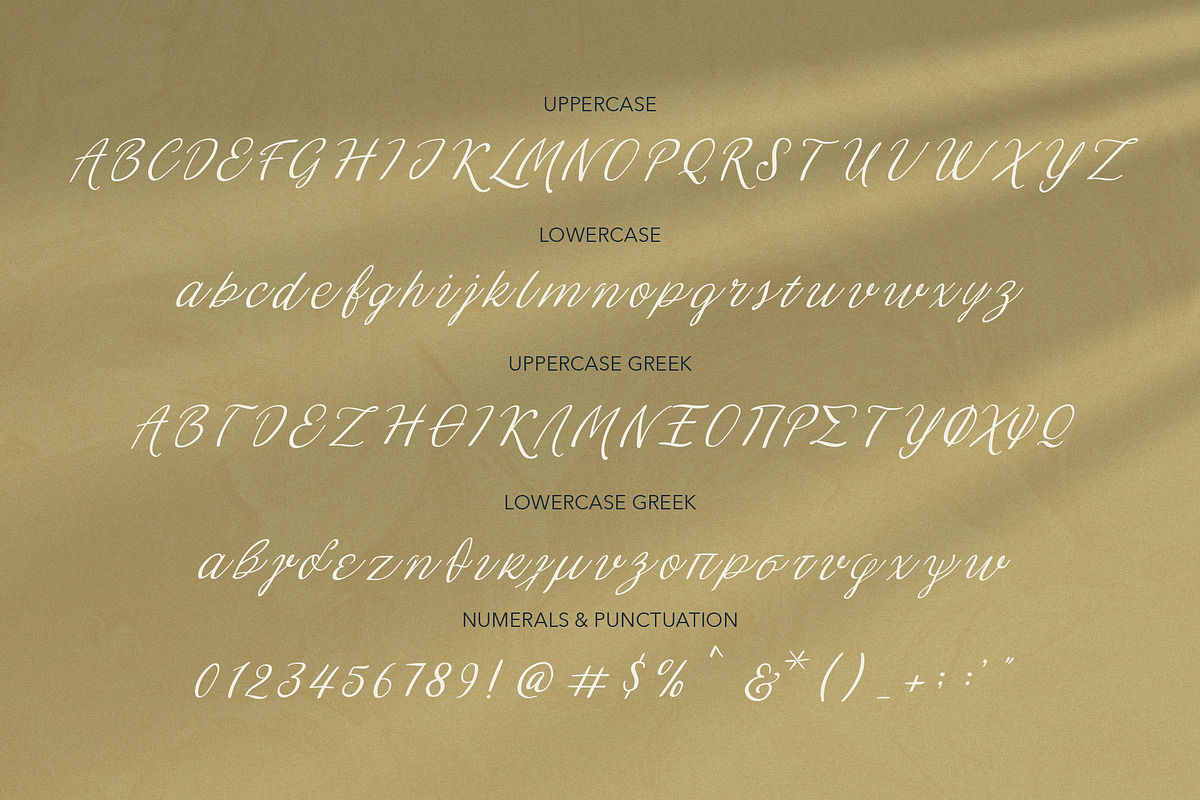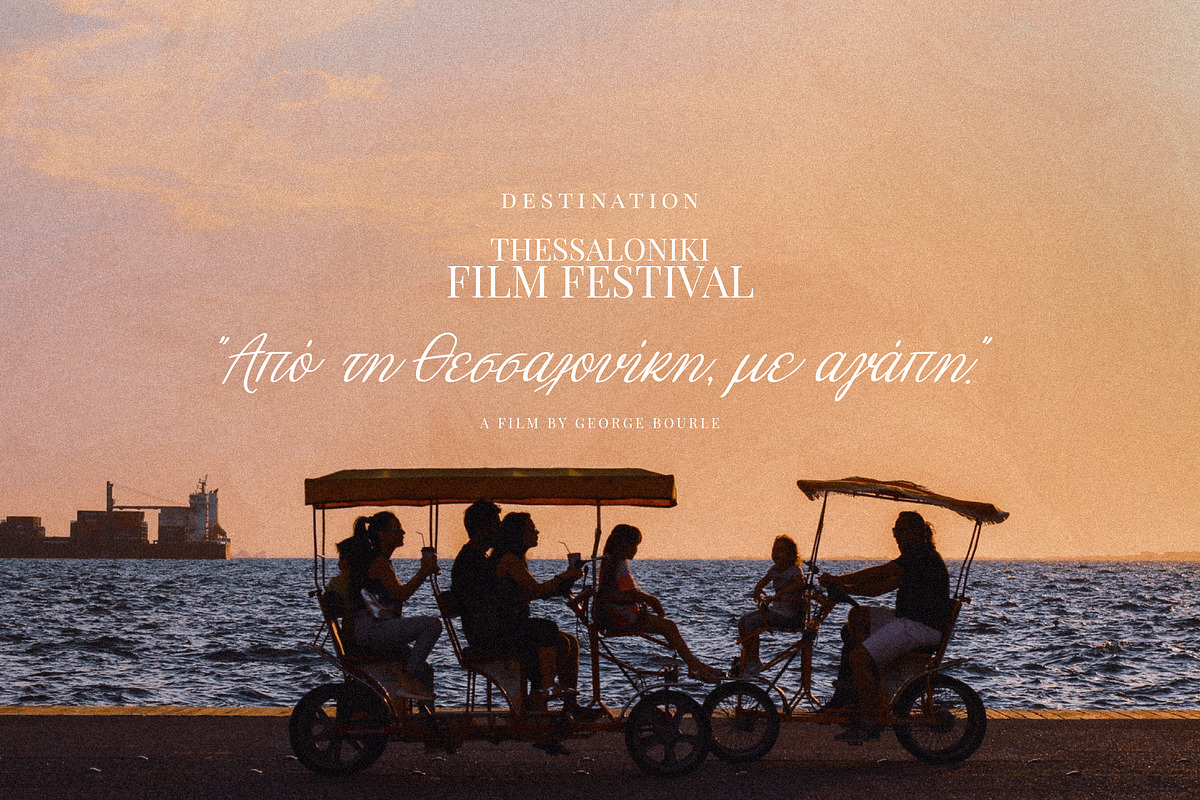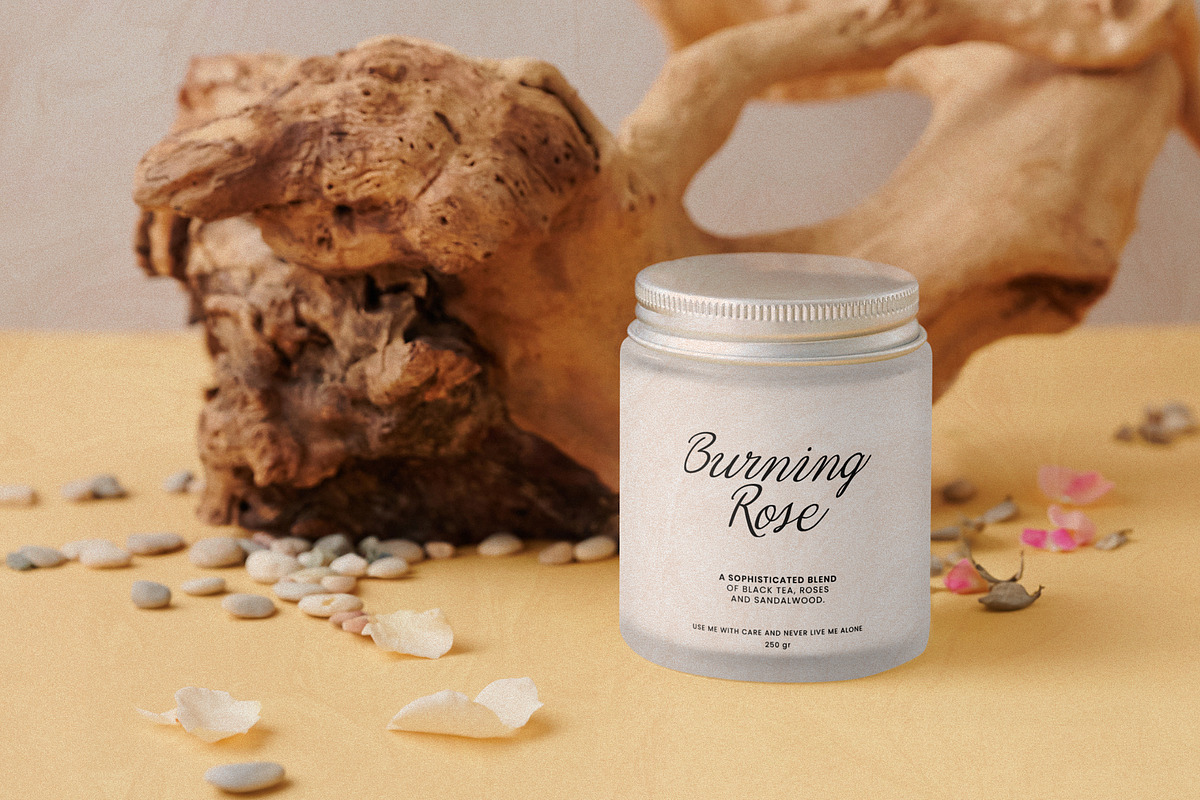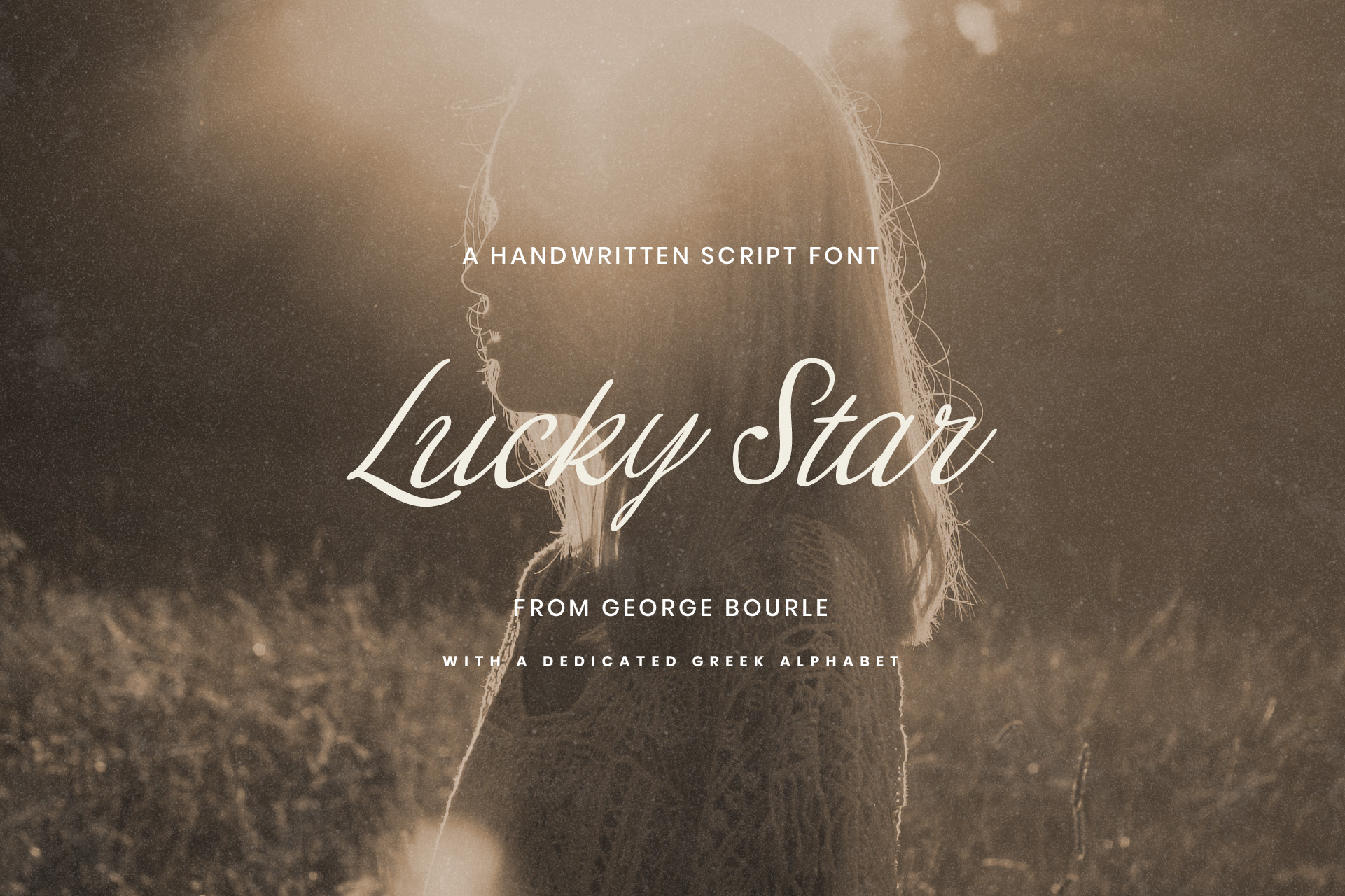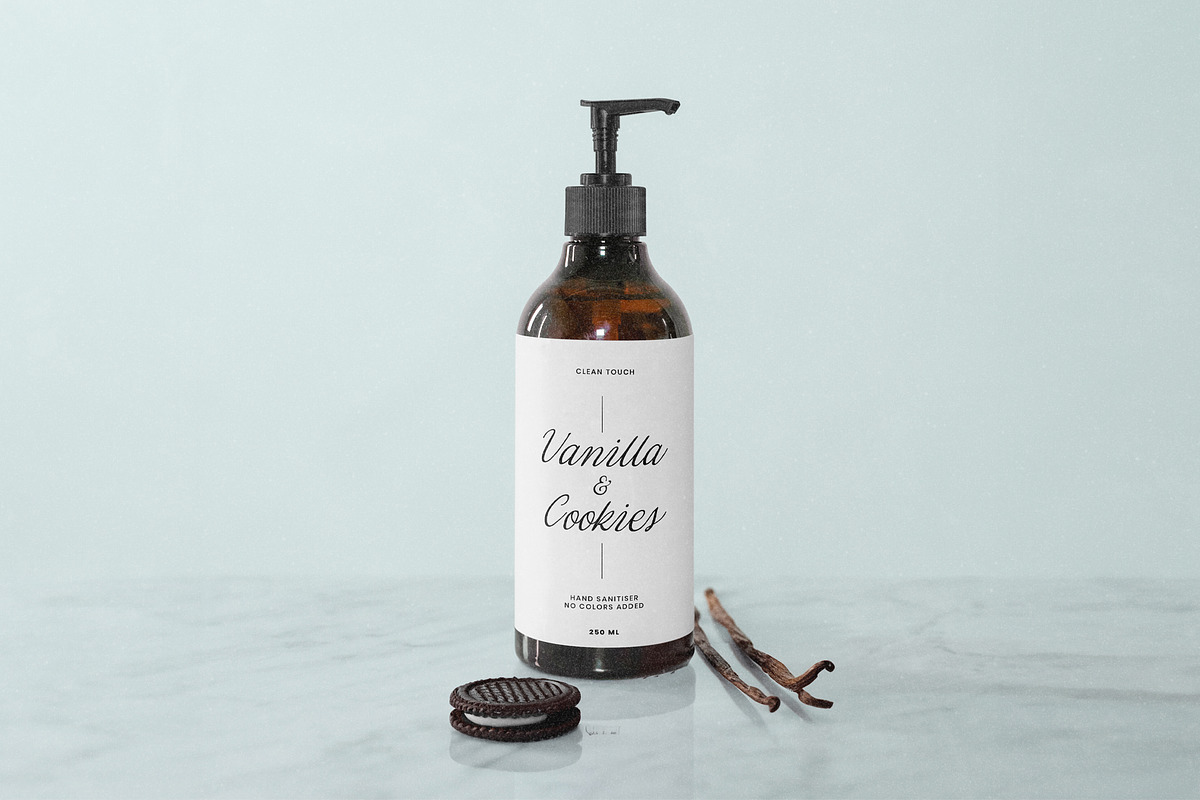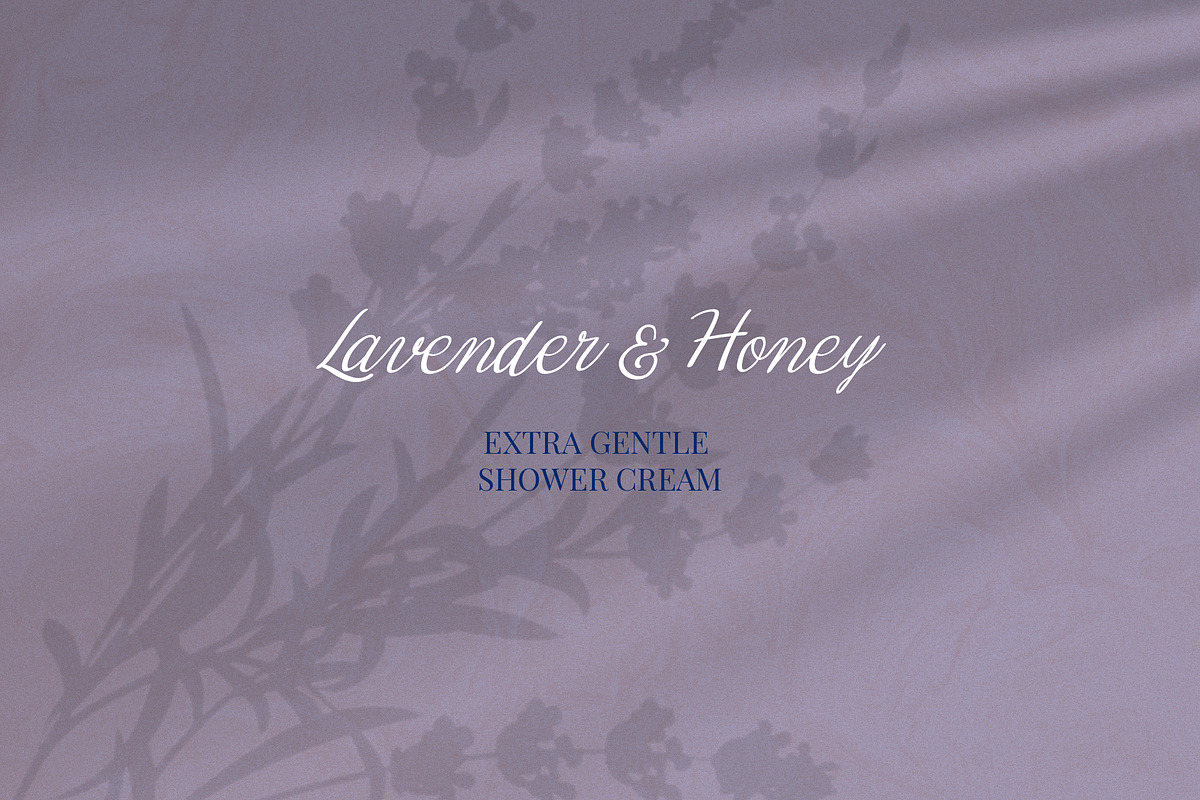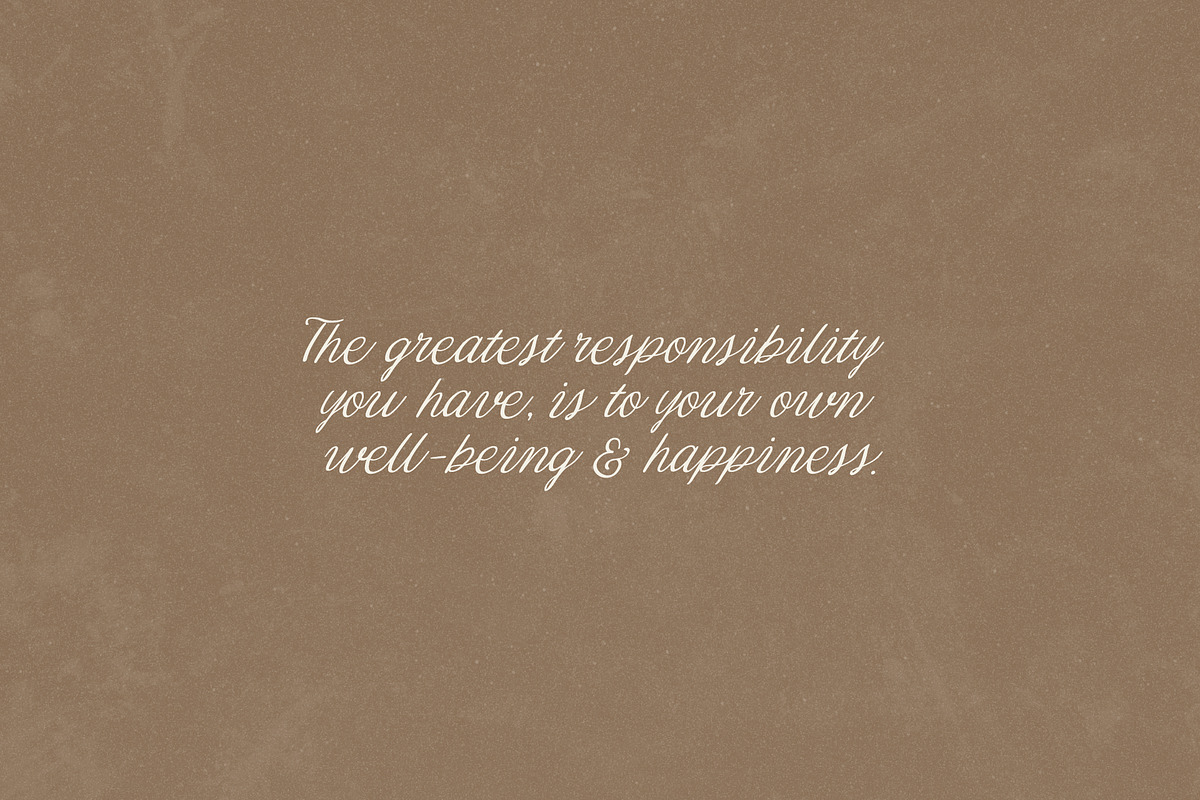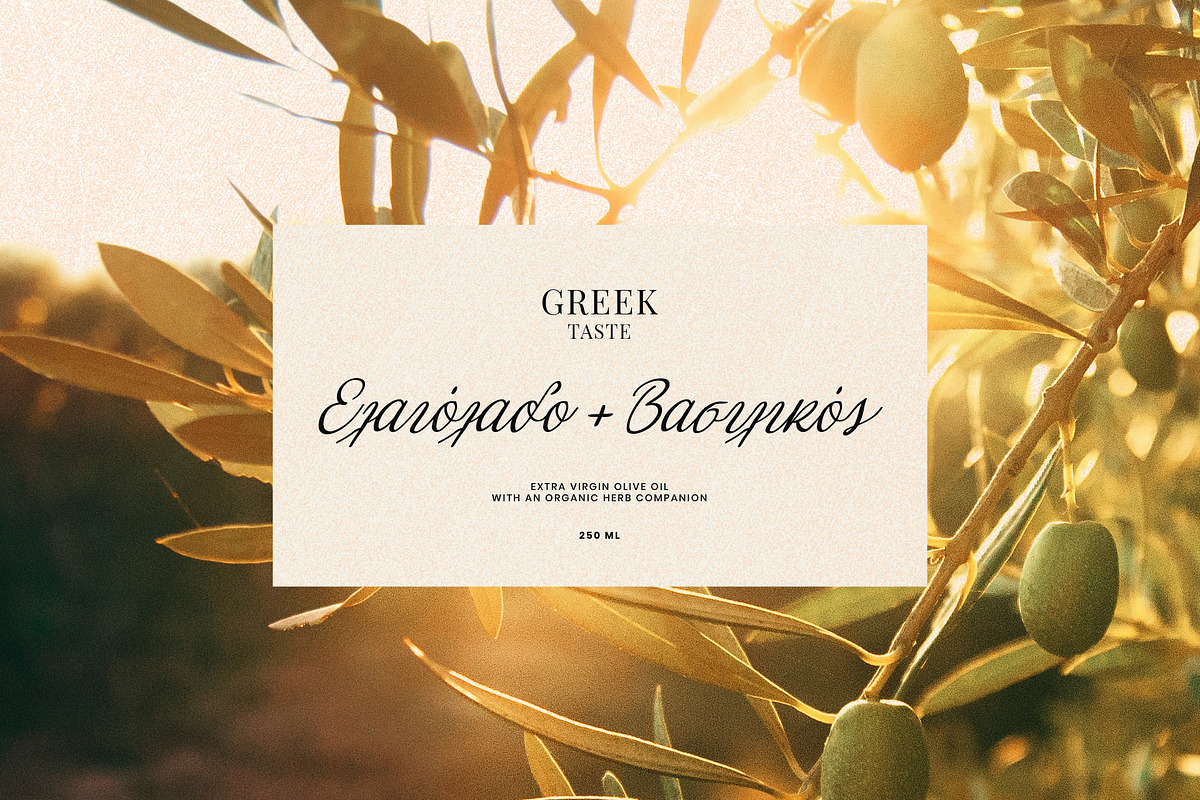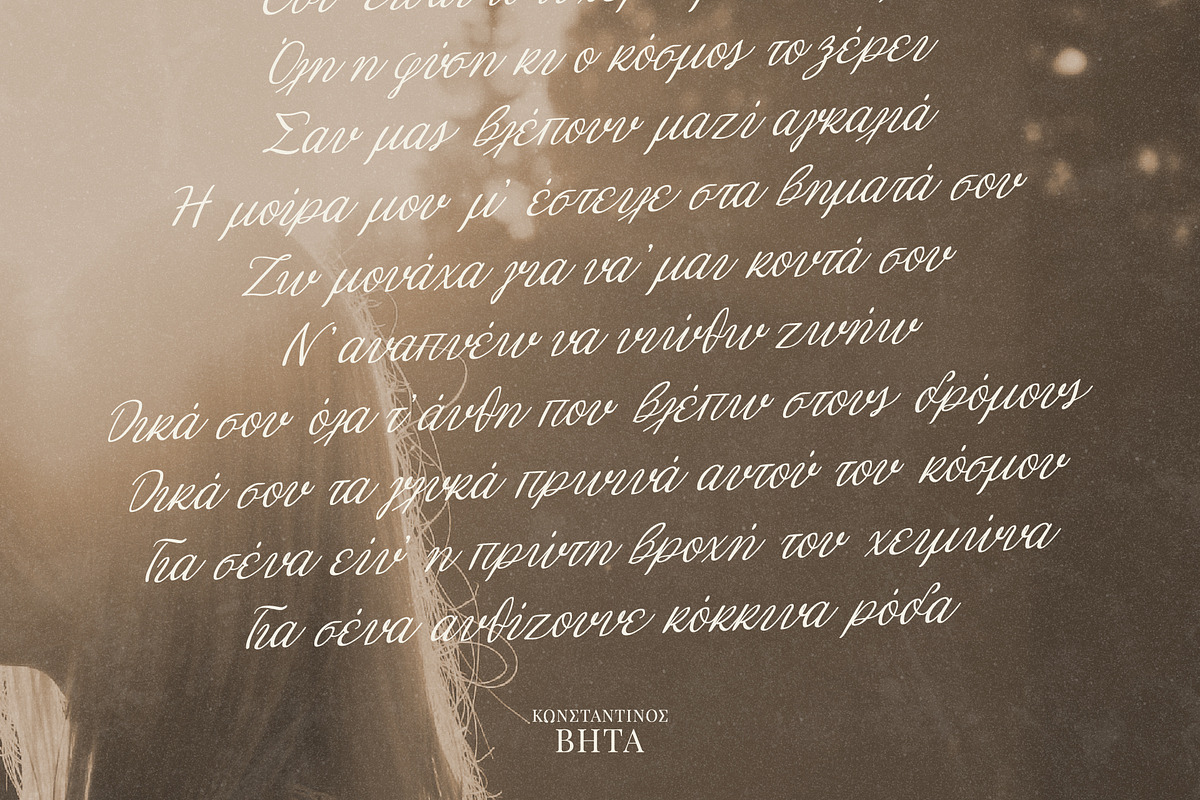
Lucky Star script font
Introducing “Lucky Star” the font that brings a touch of elegance to your design projects. This modern calligraphy script font is a brush of creativity for graphic designers and design enthusiasts alike. With its flowing strokes and graceful curves, Lucky Star adds a personal, handwritten feel to your work.
But that’s not all – Lucky Star goes the extra mile by including the Greek alphabet. Now, you can effortlessly blend both worlds, creating captivating designs with a Mediterranean twist.
Whether you’re crafting invitations, branding materials, or artwork, Lucky Star lets your creativity shine. It’s the font that brings a little extra luck to your designs. Try it today and let your creativity soar!